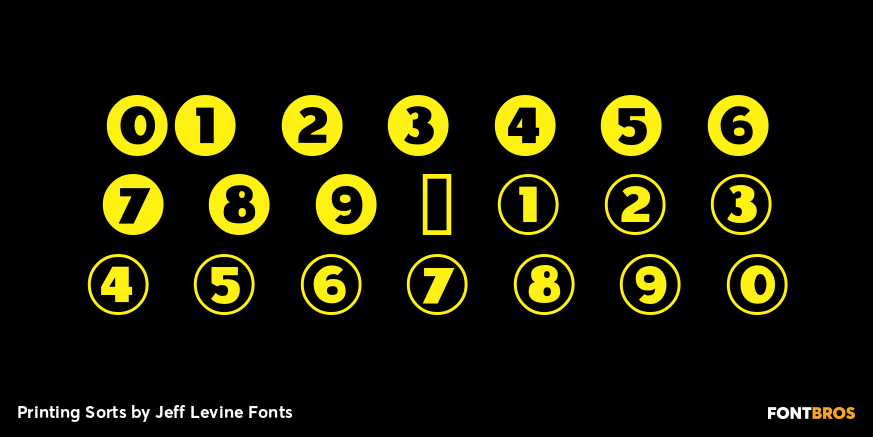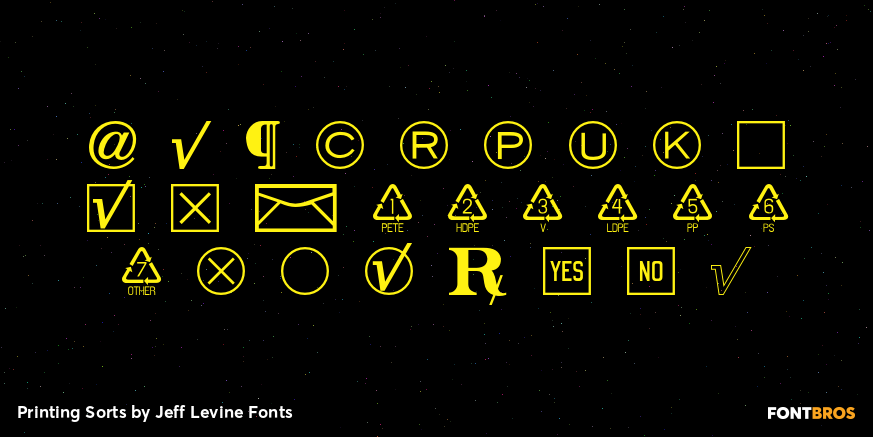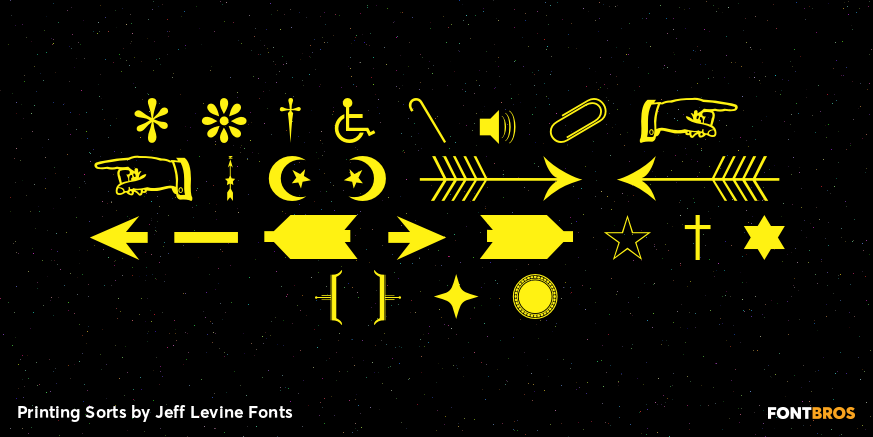
Printing Sorts
Over 75 images from the past and present comprise Printing Sorts JNL, another dingbat font from Jeff Levine paying tribute to the days of metal type and stock cuts. A PDF file is included with the font, showcasing the special feature that allows you to create arrows in varying lengths with just a few simple keystrokes.
Printing Sorts JNL Regular by Jeff Levine Fonts